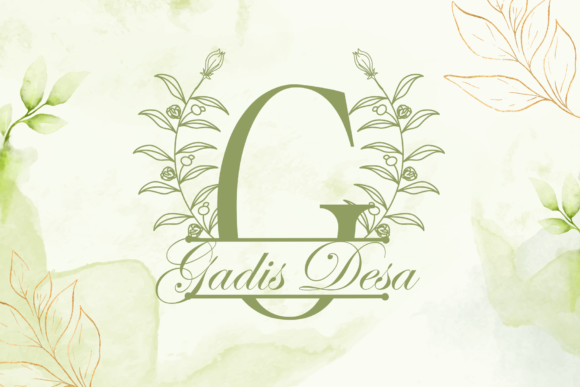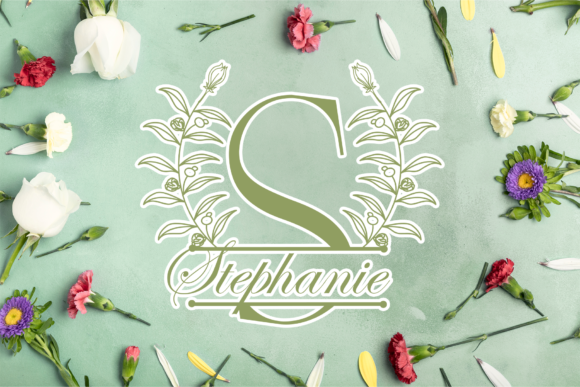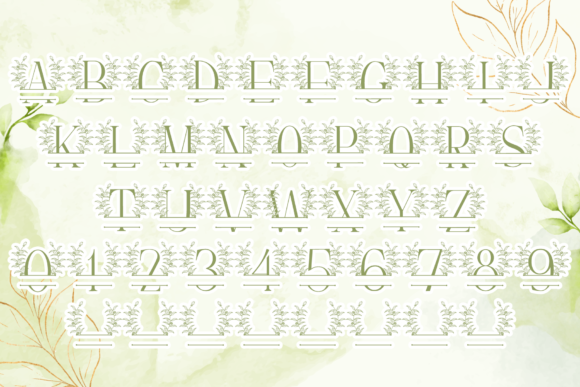
Introduction to Garden Leaves Line Monogram Font
Garden Leaves Line Monogram is a dainty and unique decorative font.
Add this romantic and lovely looking font to each of your love letters, wedding invitations or favorite design ideas, and you will be astounded by the outcome .
Key Features of Garden Leaves Line Monogram Font
Why Choose Garden Leaves Line Monogram Font?
Garden Leaves Line Monogram Font offers exceptional quality and versatility, making it a valuable addition to your design toolkit. Whether you’re creating for personal projects or commercial use, Garden Leaves Line Monogram Font delivers professional results.